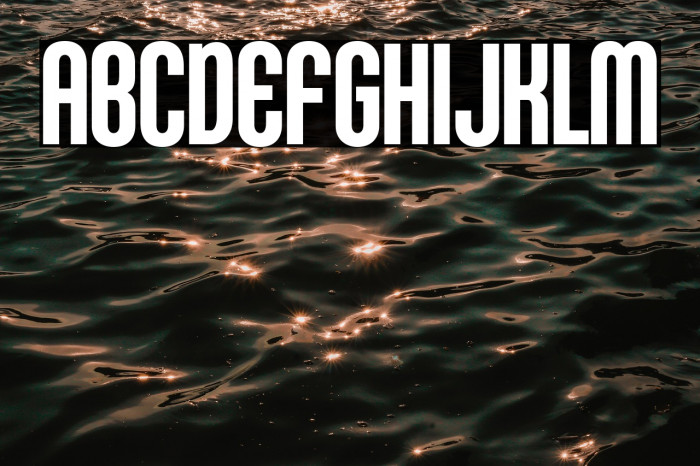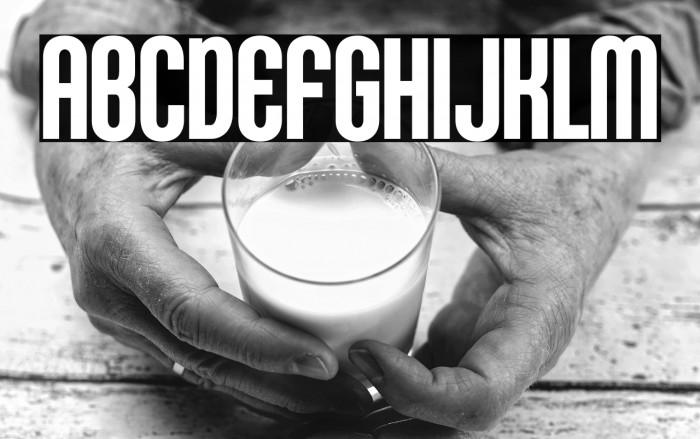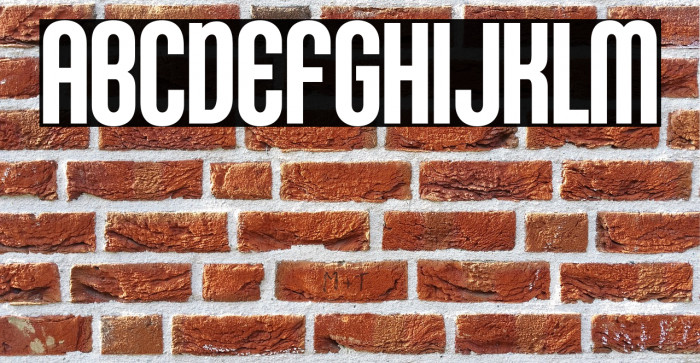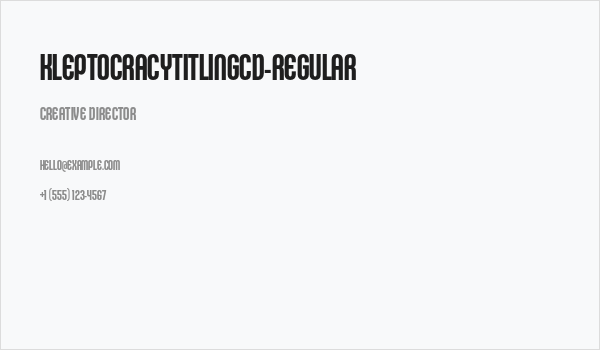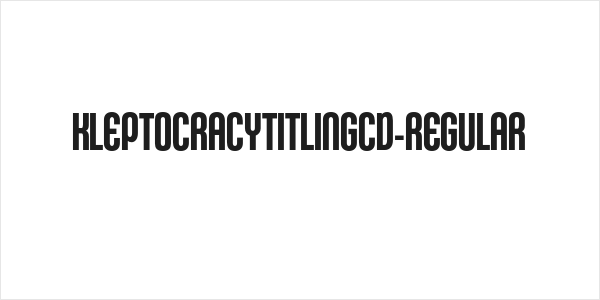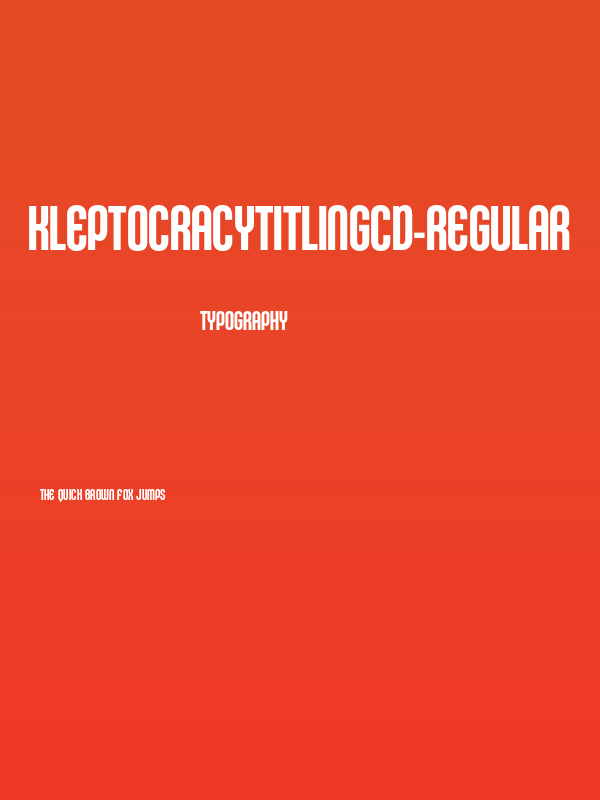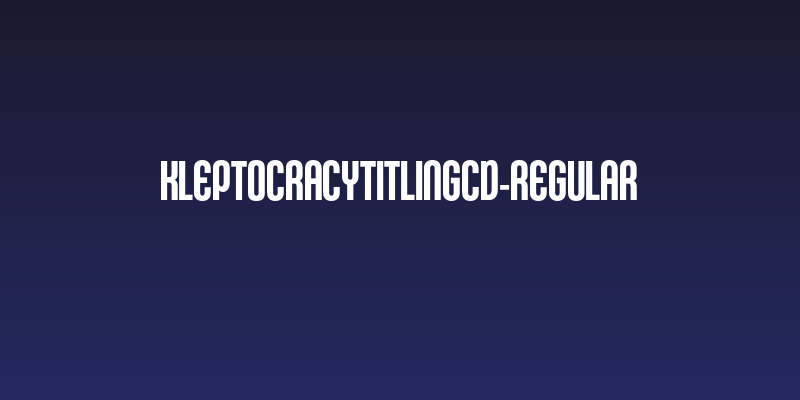
KleptocracyTitlingCd-Regular Font
KleptocracyTitlingCd-Regular Description
This font features a bold and impactful design with a modern aesthetic. The characters are tall and narrow, creating a condensed appearance that maximizes vertical space. The strokes are uniform in thickness, contributing to a clean and streamlined look. The uppercase letters are particularly striking, with a strong presence that commands attention. The numerals and special characters maintain the same bold style, ensuring consistency across all elements. This font is ideal for projects that require a strong visual impact and a contemporary feel.
| Proposed Projects | Ideal for headlines, posters, branding, and advertising where a strong visual impact is needed. |